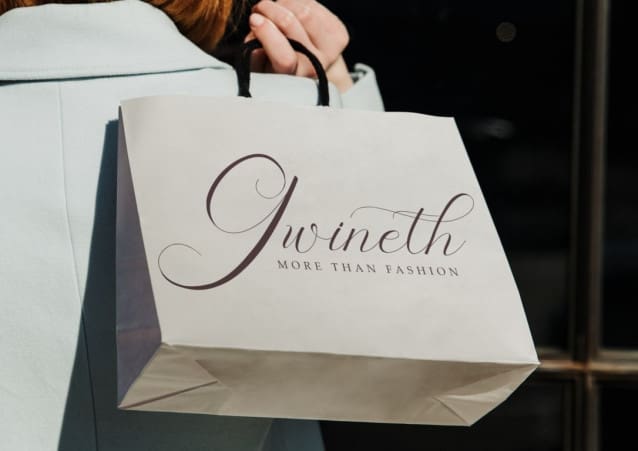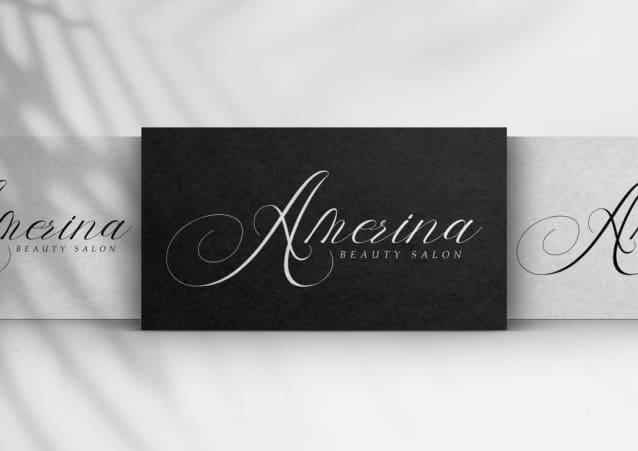
Holsity Font
Holsity Font, resulting in a beautifully organic calligraphic font. It is perfectly tailored for formal projects, maintaining its handcrafted appearance. To enhance the organic feel, Holsity features a full set of uppercase alternates, giving the font an authentic handwritten vibe. It is ideal for extraordinary occasions such as product labels, wedding invitations, business receptions, table numbers, greeting cards, thank-you notes, and much more.